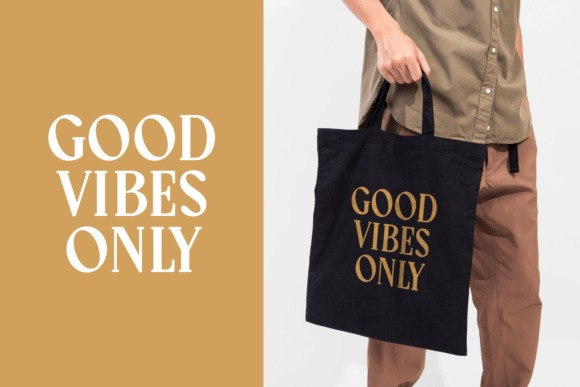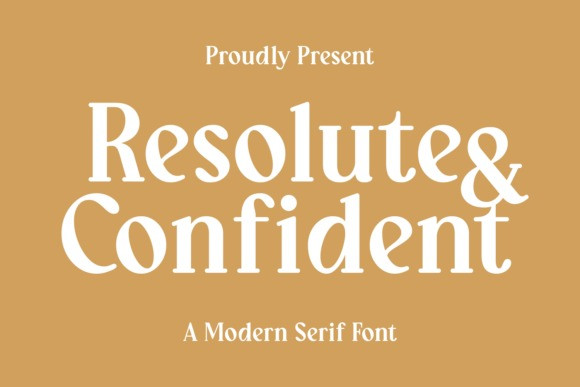
Resolute And Confident Font
Resolute And Confident Font a modern serif font. The font’s design, featuring strong, clear letterforms and a stylish ampersand, perfectly embodies its name, making it ideal for impactful headlines and confident branding.